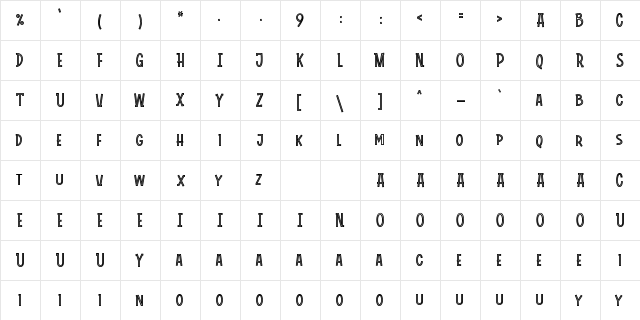
Roadkey Line Regular
| Designer | Holis Mjd |
Design Context for Roadkey Line Typeface
Roadkey Line takes a measured approach to typography — its balanced proportions and neutral character make it a reliable workhorse for both digital and print work.